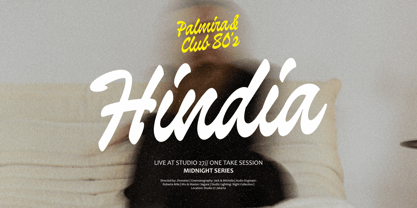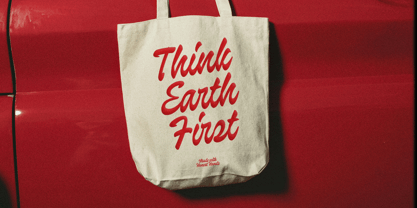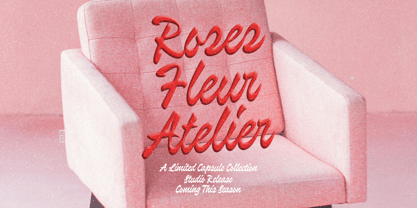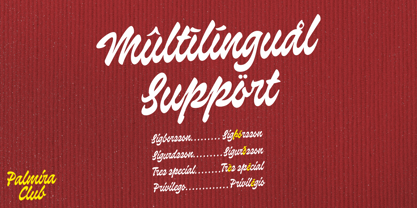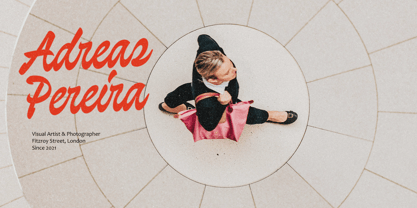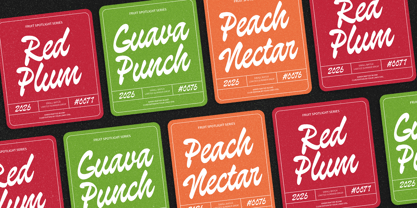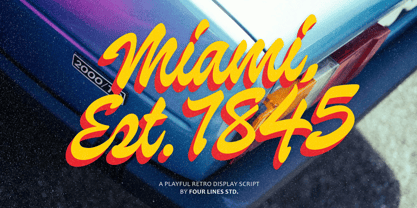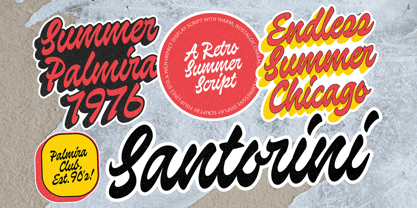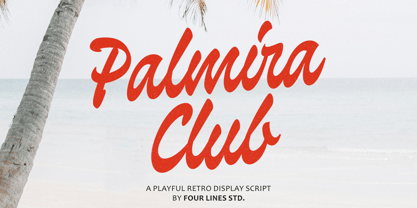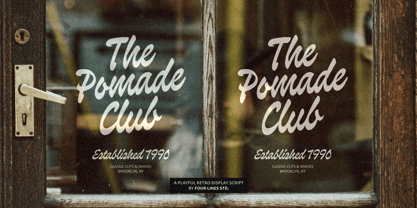
Palmira Club
by Four Lines Std
The Palmira Club Font Family was designed by Zain Fahroni and published by Four Lines Std. Palmira Club contains 1 styles. More about this family
Palmira Club is a playful retro display script with expressive and dynamic handwritten character. It is designed for headlines and branding projects that require a bold, warm, and distinctive appearance. The letterforms feature a natural flow with soft stroke contrast and a lively baseline rhythm, creating an energetic impression while maintaining good readability at larger sizes. It is well suited for logos, posters, product packaging, labels, merchandise, fashion branding, and promotional materials that call for a modern retro feel.
Designers: Zain Fahroni
Foundry: Four Lines Std
Four Lines Studio is a graphic design studio founded in 2019 by Zain Fahroni in Bandung City, Indonesia. The studio's name is inspired by a friendship story that is close to the founder's heart. Our work is heavily influenced by this friendship, which has given birth to an identity that is associated with fun, playful, and groovy elements. A key area for the studio is typography, with a specific focus on developing fonts that emphasize minimalism and versatility.